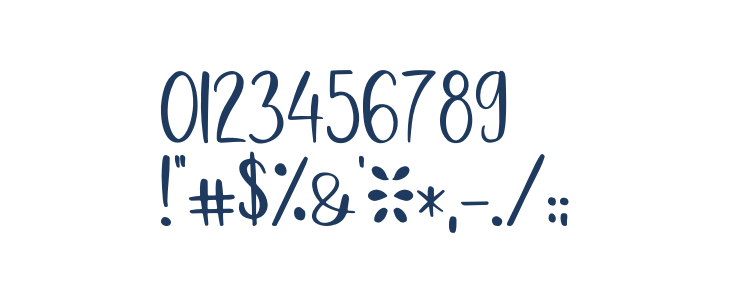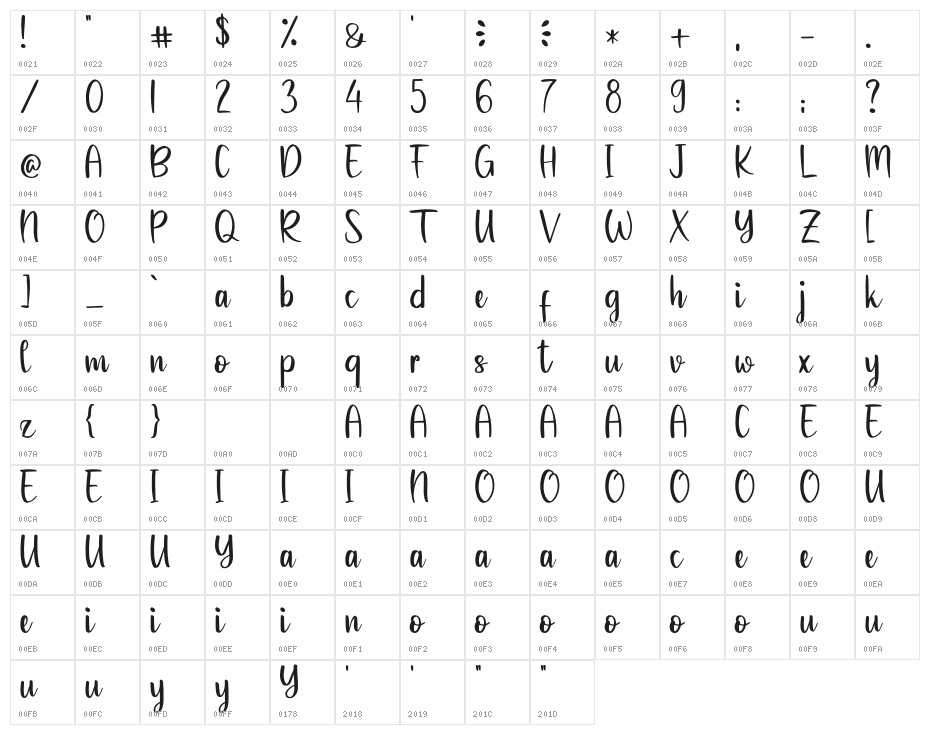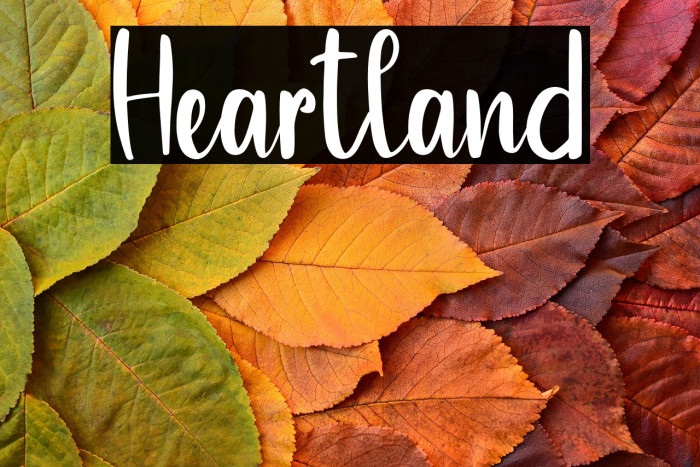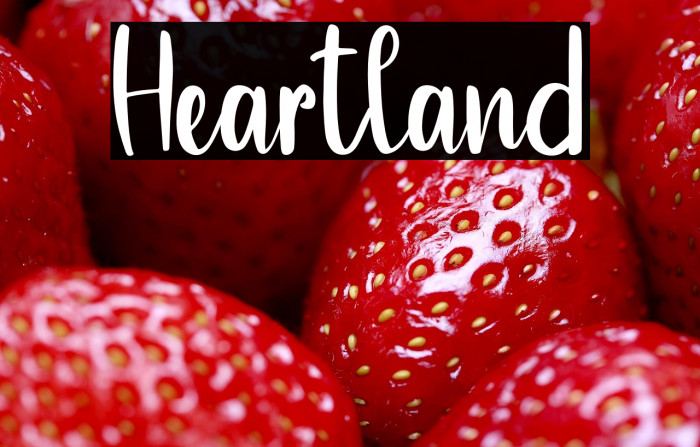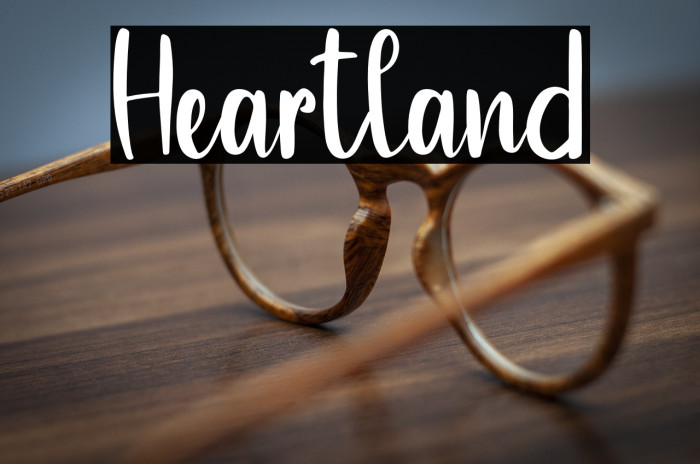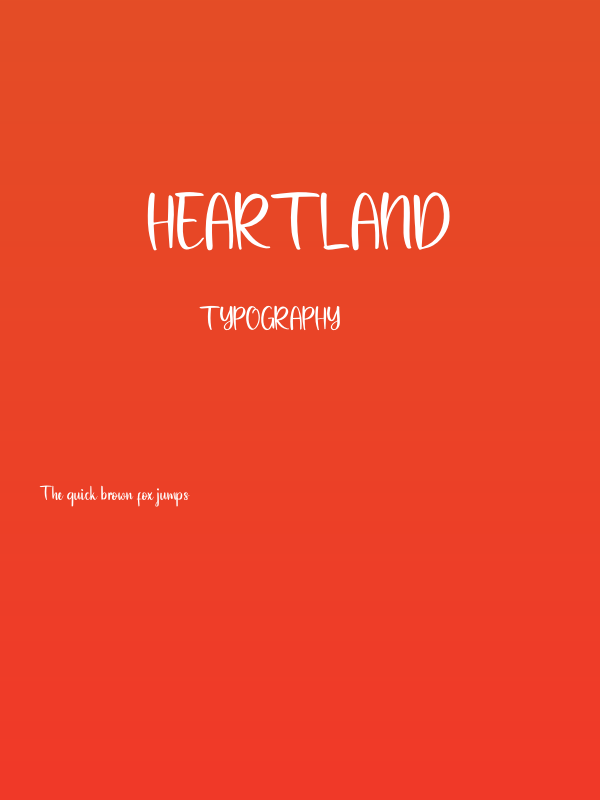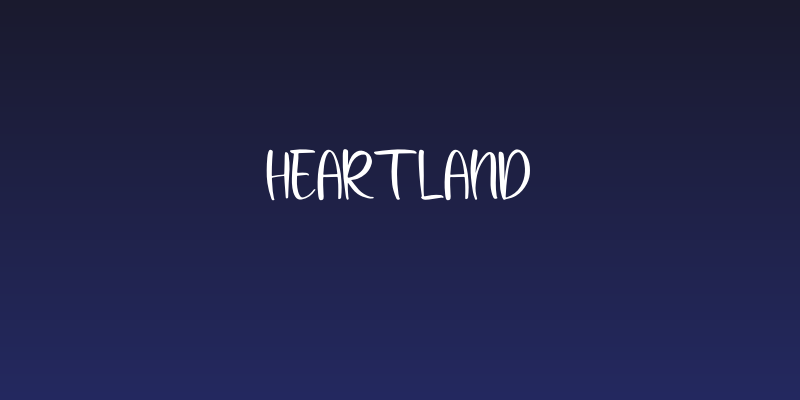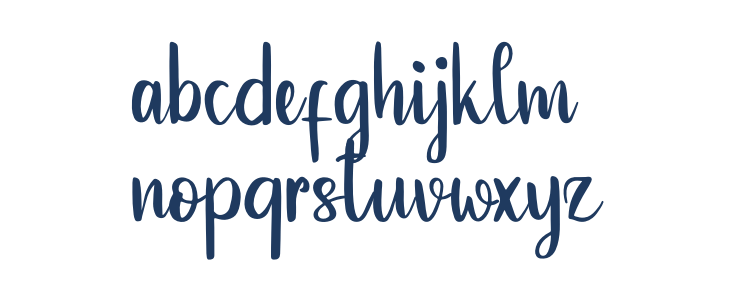
Heartland Font
Heartland Description
This font features a playful and casual handwritten style, characterized by its smooth curves and slightly irregular strokes. The uppercase letters are tall and narrow, while the lowercase letters exhibit a more relaxed and flowing appearance. The numbers are consistent with the overall style, maintaining a friendly and approachable look. Special characters are creatively designed, adding to the font's charm. This font is versatile, suitable for projects that require a personal touch or a whimsical feel.
| Proposed Projects | Ideal for greeting cards, invitations, personal branding, and creative projects that require a warm, personal touch. |